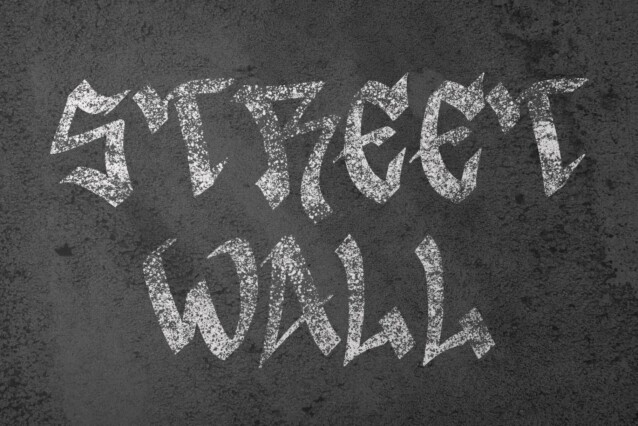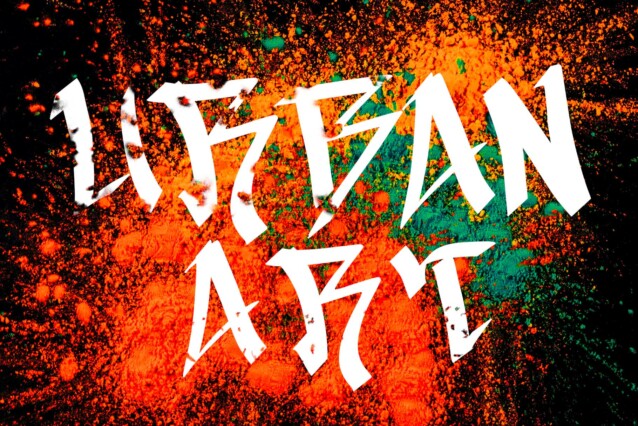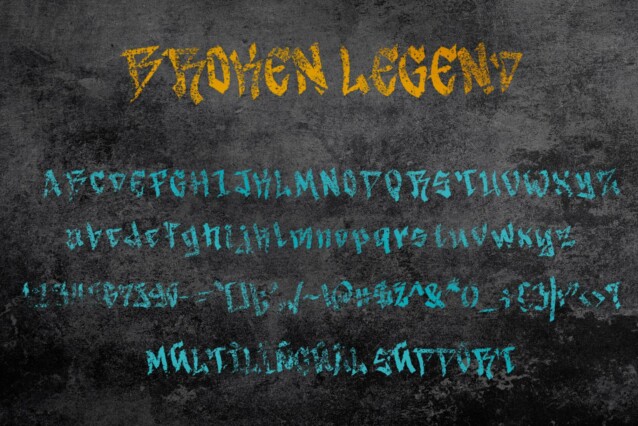
Broken Legend Font
Broken Legend Font is a unique and nice graffiti font. This font is equipped with uppercase, lowercase, numerals, punctuation, and multilingual support. Very suitable for use for city wall graffiti, tattoos, banners, posters, stickers, branding, business branding, logos, and others.